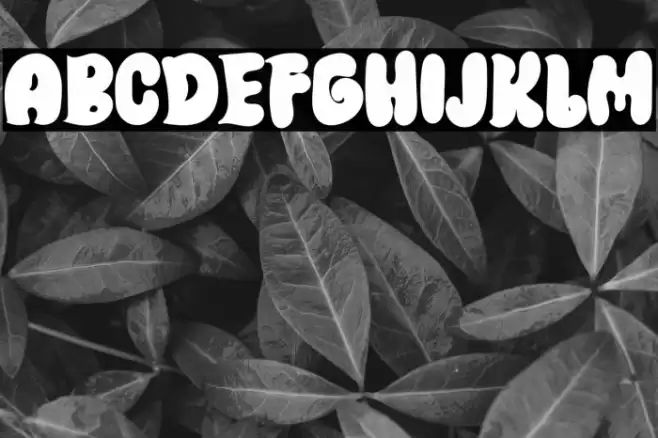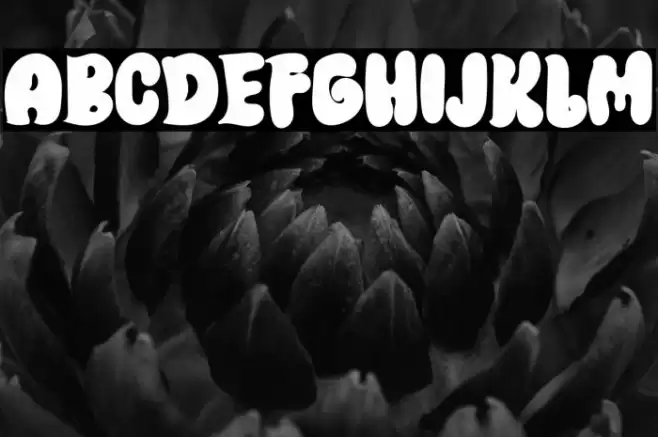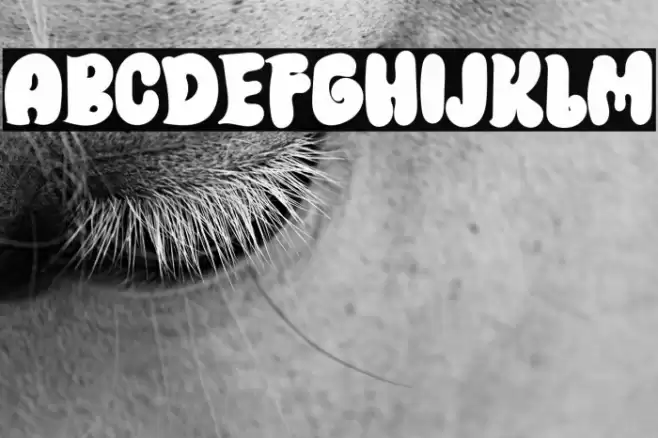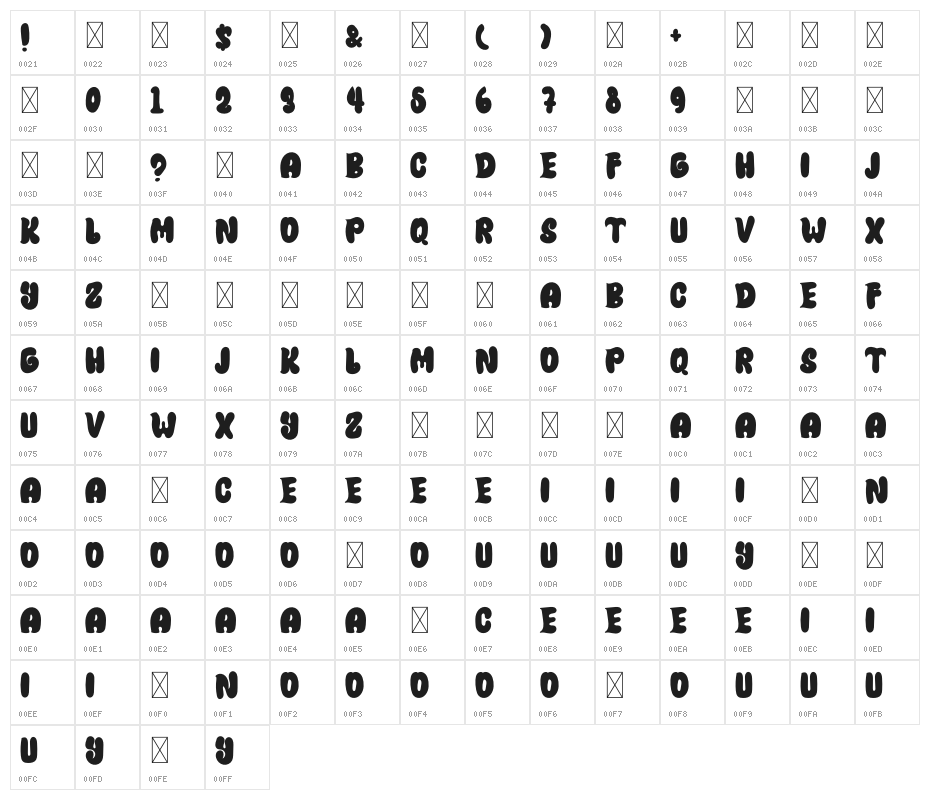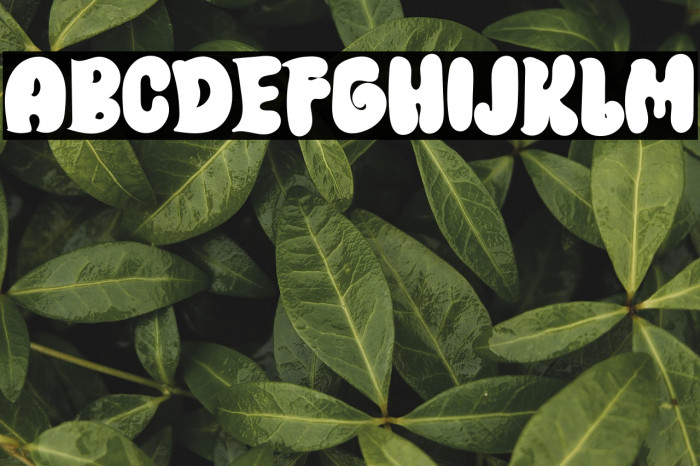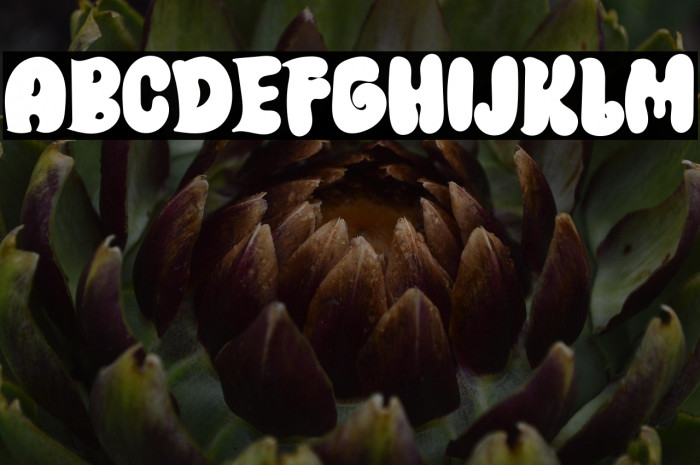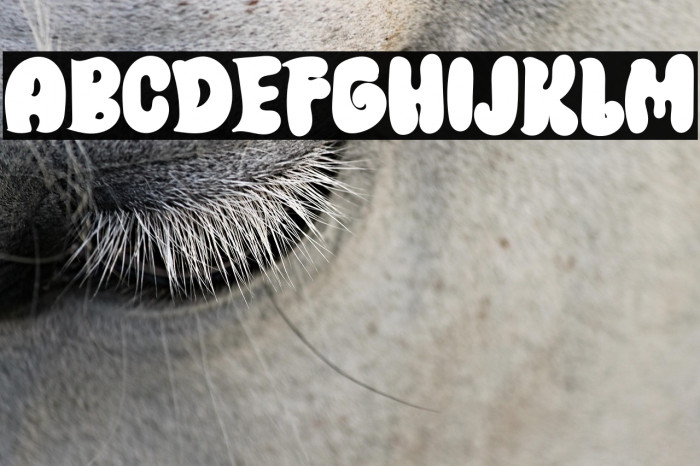
Witch Strong Font
Witch Strong Description
This font features bold, rounded characters with a playful and whimsical style. The letters are thick and have a bubbly appearance, creating a sense of fun and creativity. The uppercase and lowercase letters maintain a consistent weight, contributing to a cohesive look. The numbers and special characters follow the same design principles, ensuring uniformity across all elements. This font is ideal for projects that require a strong visual impact and a touch of humor or lightheartedness.
A bold, rounded font with a playful and whimsical style from Uncategorized fonts.
- Font: Witch Strong
- Proposed Projects: Ideal for children's books, playful branding, party invitations, and creative posters.
- Overall Style: Playful
- Use Case: Logos, Posters, Headlines